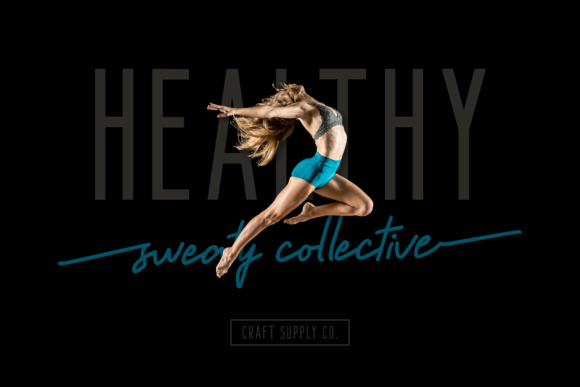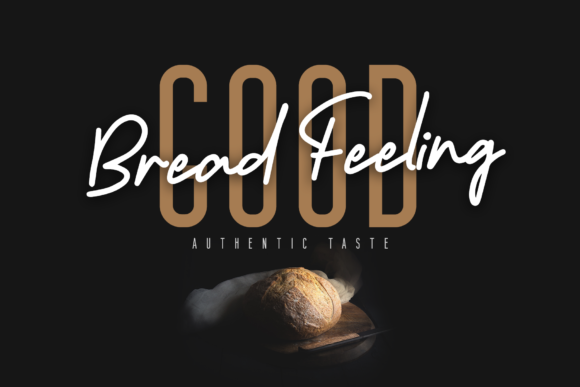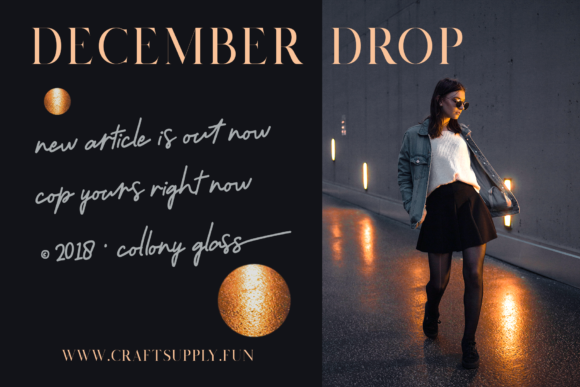
Introduction to Morning Gold Font
Have you ever found yourself scribbling down a brilliant idea in the early hours of the morning, the words flowing effortlessly onto the page as the world outside slowly awakens? For designers, those magical moments of creative clarity are what make the hard work worth it. And when it comes to bringing that same feeling to life in a design project, the right font can make all the difference.
That’s where the Morning Gold Font comes in – a stunning handwritten script font that perfectly captures the essence of real handwriting. With its elegant, high-quality design, it’s the perfect addition to any creative project, whether you’re working on a fashion brand, e-commerce site, or wedding boutique. And the best part? It’s available for free download, making it a valuable design resource for designers of all levels.
Key Features of Morning Gold Font
- High-quality, elegant font suitable for creative projects
- Features a modern, sophisticated design with a warm golden tone, perfect for adding a touch of luxury to any project
Honest Review: Morning Gold Font
As a designer, I’m always on the lookout for high-quality design resources to elevate my creative projects. The Morning Gold Font is one of the latest additions to my arsenal, and I’m excited to share my honest review with you.
What works well: ✨ The Morning Gold Font is a beautiful, elegant script font that’s perfect for adding a touch of sophistication to your designs. Its high-quality design makes it suitable for a wide range of creative projects, from wedding invitations to branding materials. The font is also available for free download, making it an excellent choice for designers on a budget.
One of the standout features of the Morning Gold Font is its transparent background, which allows for seamless integration with any design element. I’ve used it to create stunning headers and titles that add a professional touch to my designs.
- What I love about the Morning Gold Font is its versatility and high-quality design.
Overall impression: I’m thoroughly impressed with the Morning Gold Font, and I highly recommend it to designers looking for a high-quality, free design resource. Whether you’re working on a creative project or simply want to add a touch of elegance to your designs, the Morning Gold Font is an excellent choice.
Morning Gold Font is a high-quality design resource that can elevate your creative project with its elegant and sophisticated look. This font features a transparent background, making it easy to use in various design applications.
To get the most out of Morning Gold Font, use it in creative projects that require a sophisticated and elegant look. You can also experiment with different font sizes, colors, and styles to create unique designs.
Common Use Cases for Morning Gold Font
Morning Gold Font is commonly used in wedding invitations, business presentations, and marketing materials. Its elegant and sophisticated look makes it perfect for any project that requires a touch of class and sophistication.